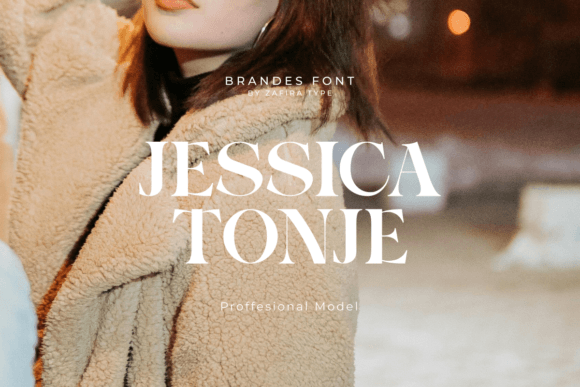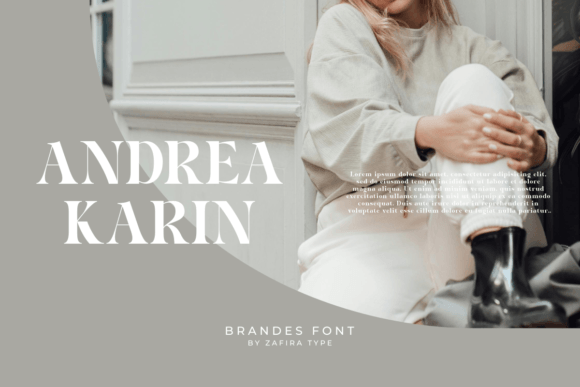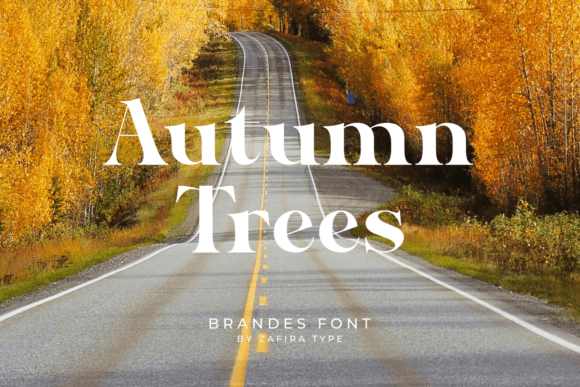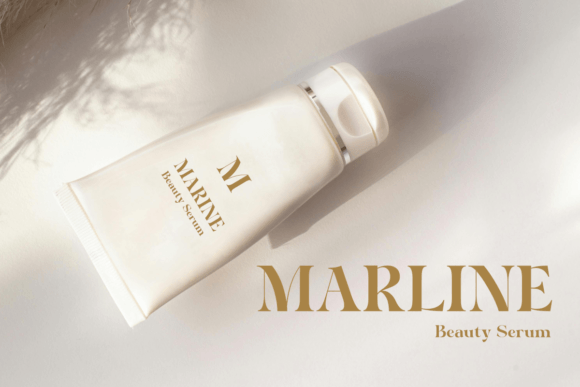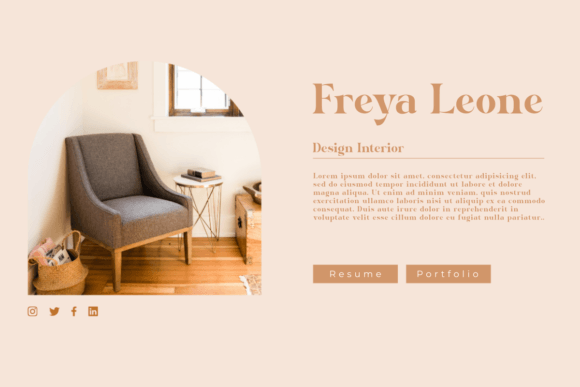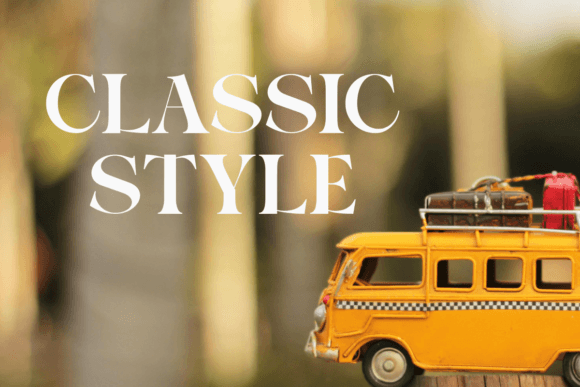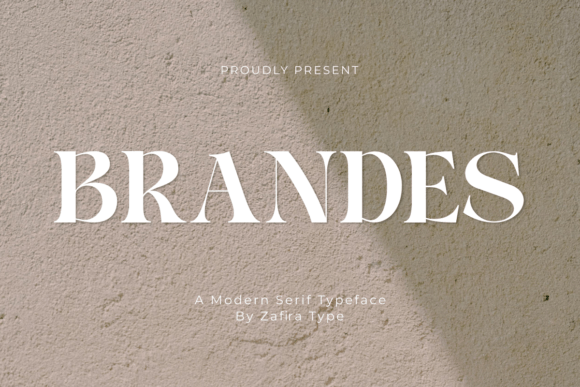
Discover the Timeless Elegance of Brandes Font: A Perfect Blend of Classic and Modern Sophistication
In the world of typography, few fonts manage to strike a balance between classic elegance and modern sophistication as effortlessly as Brandes. This versatile serif font has been gaining popularity among designers and crafters for its refined beauty, making it an ideal choice for a wide range of projects, from branding and editorial design to print materials. With its multiple weights, high-quality characters, and comprehensive multilingual support, Brandes is poised to elevate your designs to new heights.
The Essence of Brandes: A Timeless Serif Font
Brandes is more than just a font; it’s a statement of elegance and sophistication. Its serif design pays homage to the classic typography of the past, while its modern twists ensure it remains relevant in today’s fast-paced design landscape. Whether you’re working on a luxury brand’s visual identity, a magazine layout, or a high-end print project, Brandes offers the perfect blend of tradition and innovation.
Versatility at Its Best: Multiple Weights and High-Quality Characters
One of the standout features of Brandes is its range of multiple weights, allowing designers to adapt the font to various contexts and uses. From the light, subtle strokes of its lighter weights to the bold, commanding presence of its heavier weights, Brandes offers unparalleled flexibility. This versatility ensures that the font can be used for both headline and body text, making it a practical choice for editorial design and long-form content.
Moreover, Brandes boasts high-quality characters that add to its aesthetic appeal. Each character is meticulously crafted to ensure clarity, legibility, and beauty, making every word and sentence a pleasure to read. Whether you’re designing for digital platforms or print, the quality of Brandes’ characters shines through, enhancing the overall reading experience.
Comprehensive Multilingual Support for Global Projects
In today’s globalized world, design projects often require fonts that can accommodate multiple languages. Brandes rises to the challenge with its comprehensive multilingual support. This feature makes it an excellent choice for international brands, global publications, and designers working on projects with diverse linguistic needs. With Brandes, you can confidently create content that resonates with audiences worldwide, without worrying about typographical limitations.
Elevate Your Designs with Brandes
Brandes is not just a font; it’s a design solution that can transform your projects. Its refined beauty and versatility make it suitable for a myriad of applications:
- Branding: Use Brandes to create a lasting impression with luxury brands, boutique labels, or any business looking for a sophisticated visual identity.
- Editorial Design: Elevate your magazine, newspaper, or digital publication with Brandes’ elegant and readable serif design.
- Print: From high-end brochures to elegant stationery, Brandes adds a touch of class to any print material.
With Brandes, you have the power to enhance your designs, engage your audience, and convey your message with style and sophistication. Whether you’re a professional designer or a crafting enthusiast, Brandes is an invaluable addition to your typographic arsenal.
Brandes font represents the perfect marriage of classic elegance and modern sophistication, offering designers and crafters a versatile tool for creating stunning visual content. Its multiple weights, high-quality characters, and comprehensive multilingual support make it an ideal choice for a wide range of projects. By incorporating Brandes into your design workflow, you can elevate your projects, enhance readability, and make a lasting impact on your audience. Discover the refined beauty of Brandes and take your designs to new heights of elegance and sophistication.